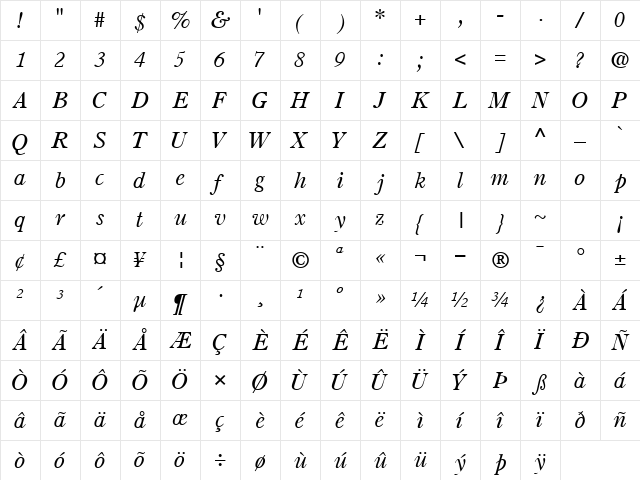
PartitionSSK Italic
PartitionSSK Family
Design Context for PartitionSSK
PartitionSSK is a composed and adaptable typeface that performs quietly and consistently across a wide range of design contexts. The slanted form adds forward momentum and visual energy.
Pro Tip: Use PartitionSSK for emphasis, pull quotes, and subheadings where its slanted energy can add rhythm to the layout.